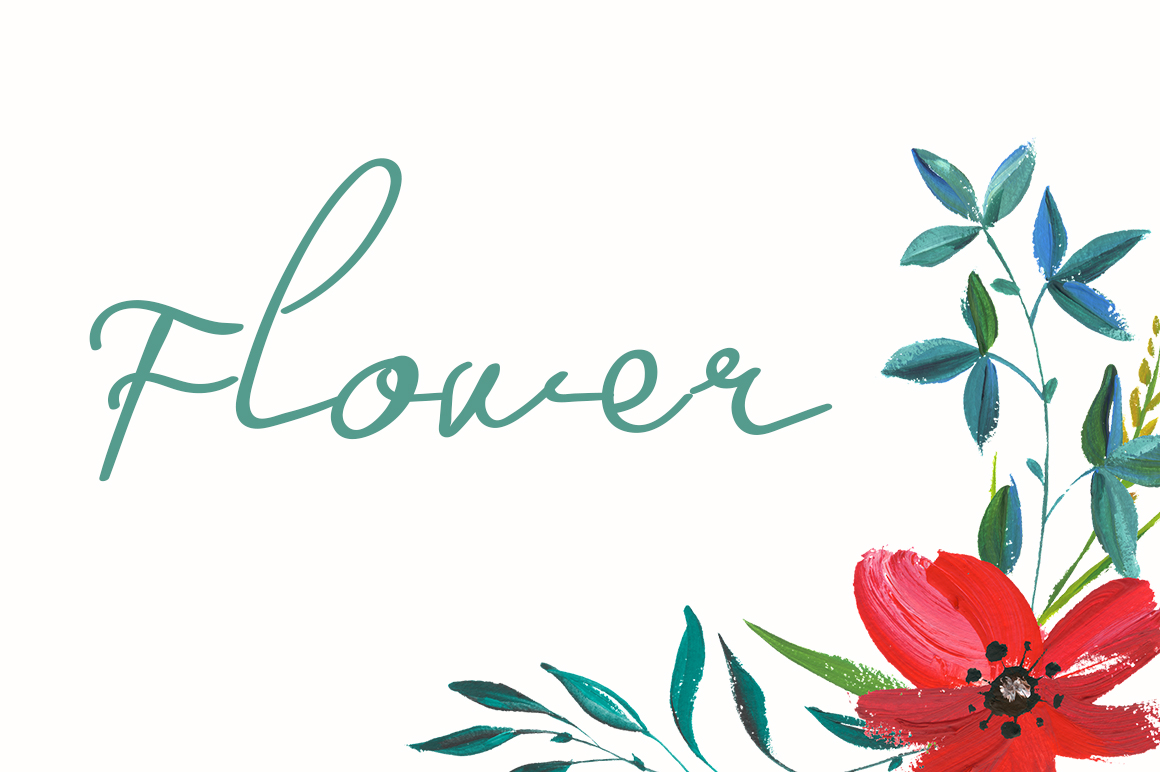
Raysa Script 字体介绍
It’s a stunning handwritten font designed with natural movements for an authentic effect! Add it to your most exquisite projects and notice how it makes come alive!